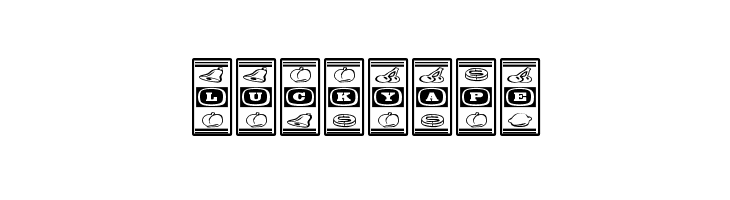
( Fonts by Rodrigo German - RASDESIGN )
A bold, sports-themed decorative font with illustrated icons and blocky numerals.
( Fonts by www.junkohanhero.com )
A decorative and eclectic font with characters made from unique graphic elements.
( Fonts by Anita Wainer - www.jamondelmar.com )
A Beatles-themed decorative dingbat font with illustrations and icons.
( Fonts by Manfred Klein - manfred-klein.ina-mar.com )
Illustrative font featuring drama and theater motifs.
( Fonts by Manfred Klein - manfred-klein.ina-mar.com )
A collection of decorative illustrations inspired by classical art and mythology.
( Fonts by www.fontalicious.com )
A playful collection of sports-themed icons in a cartoonish style.
( Fonts by Blue Vinyl - Jess Latham - www.bvfonts.com )
A collection of rock-themed graphics and symbols, not a traditional font.
A decorative dingbat font with conspiracy and secret society iconography.
( Fonts by Klaus Johansen - www.listemageren.dK )
An ornate, decorative font featuring intricate illustrations within each character.
( Fonts by Manfred Klein - manfred-klein.ina-mar.com )
Anatomical illustration-based decorative display font.
( Fonts by Blue Vinyl - Jess Latham - www.bvfonts.com )
A decorative font inspired by Dia de los Muertos, featuring festive and cultural symbols.
( Fonts by Blue Vinyl - Jess Latham - www.bvfonts.com )
A Halloween-themed decorative set of icons and graphics.
( Fonts by Manfred Klein - manfred-klein.ina-mar.com )
A decorative Halloween-themed font with playful, illustrated characters.
( Fonts by www.fontmenu.com )
A decorative font with Halloween-themed silhouettes.
An artistic and abstract collection of letterforms filled with intricate illustrations.
A symbolic collection of icons blending peace and conflict themes.
The image features decorative silhouette illustrations, not a font.
Silhouette-based font with historical figure illustrations forming each character.
( Fonts by Dieter Steffmann )
An ornate, decorative font with intricate illustrations within each letter.
A decorative font featuring intricate silhouette illustrations for each character.